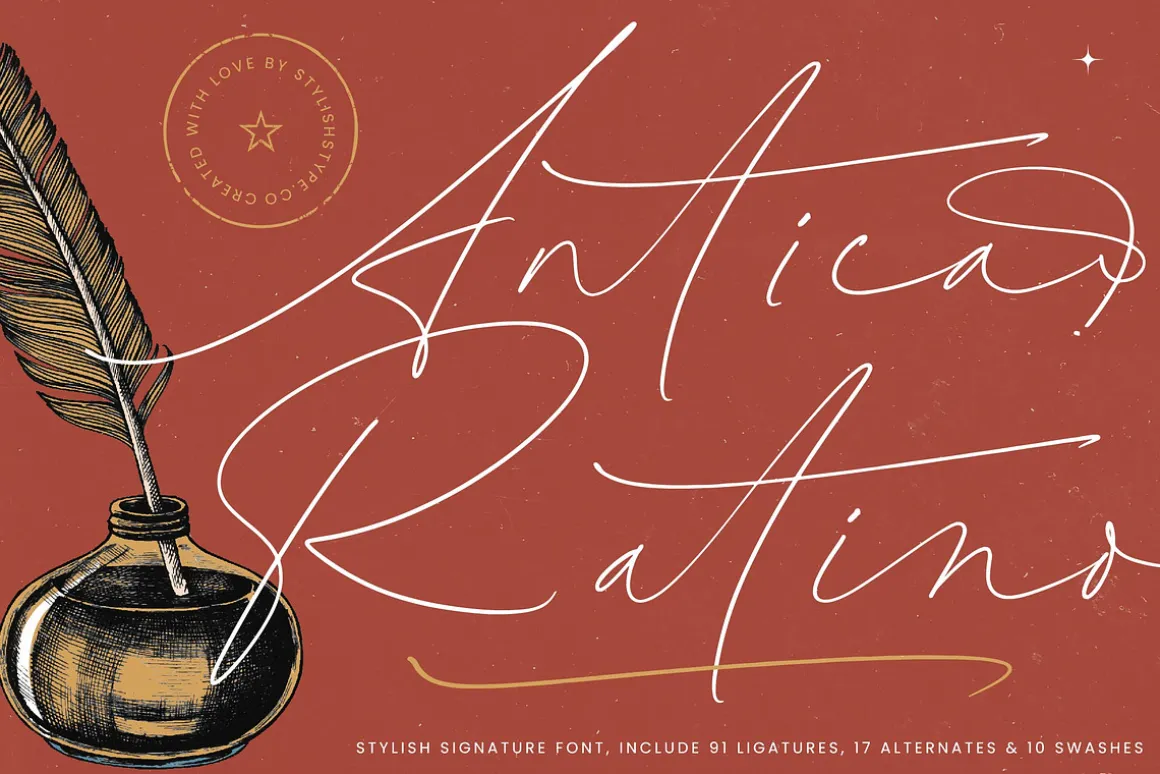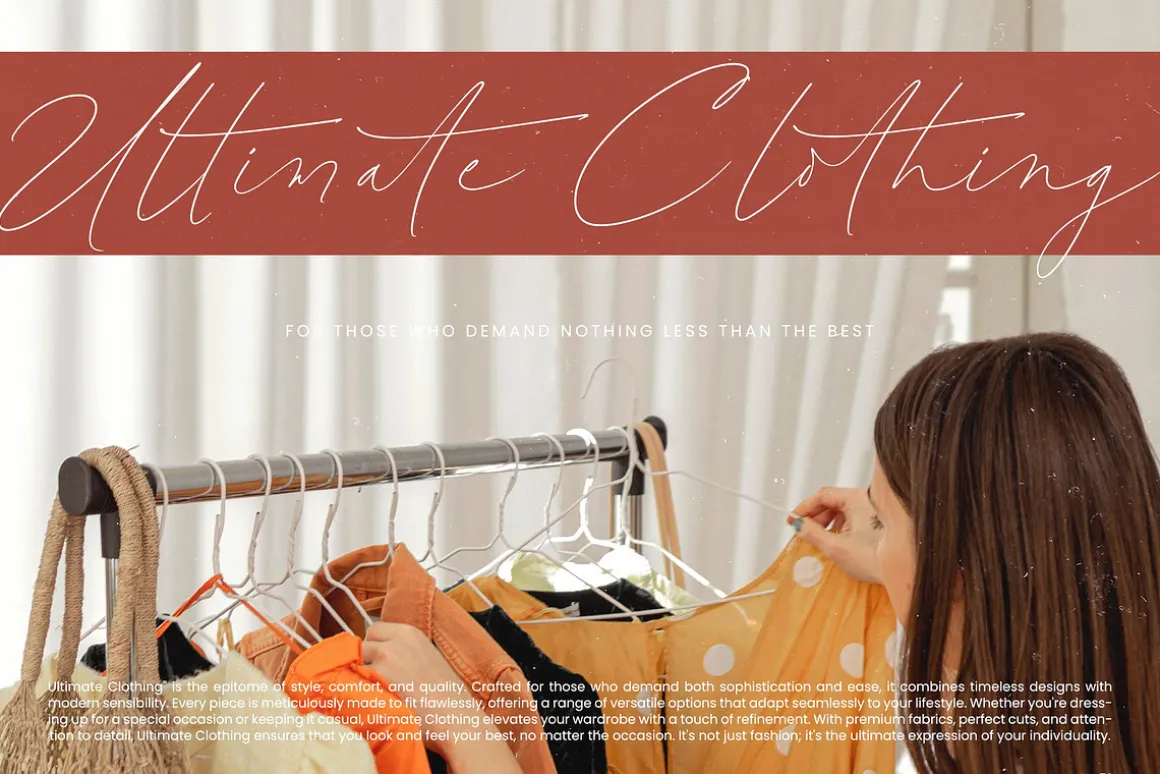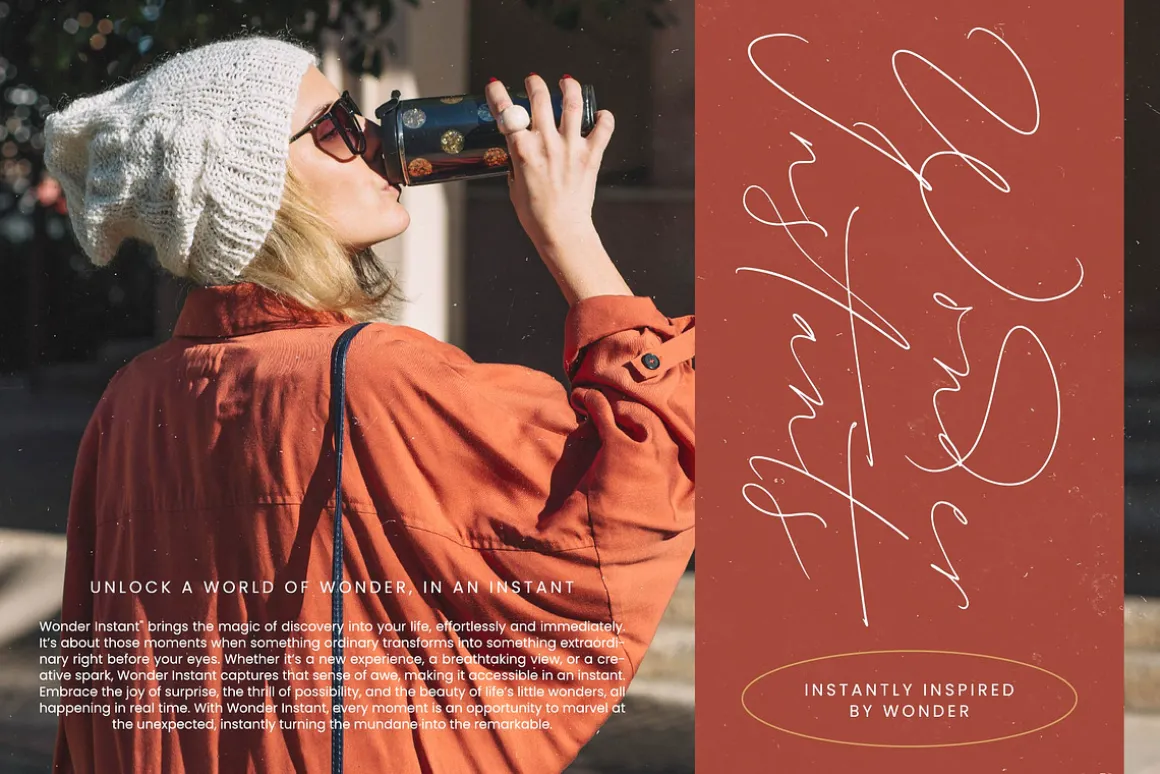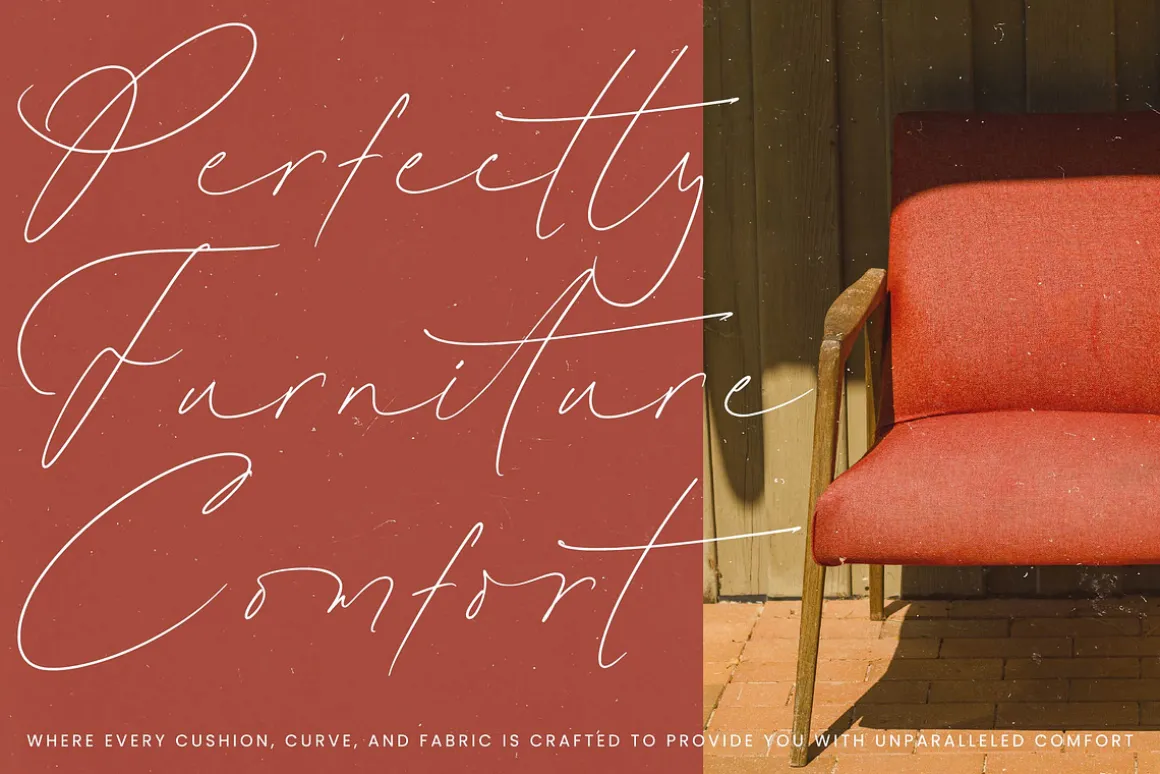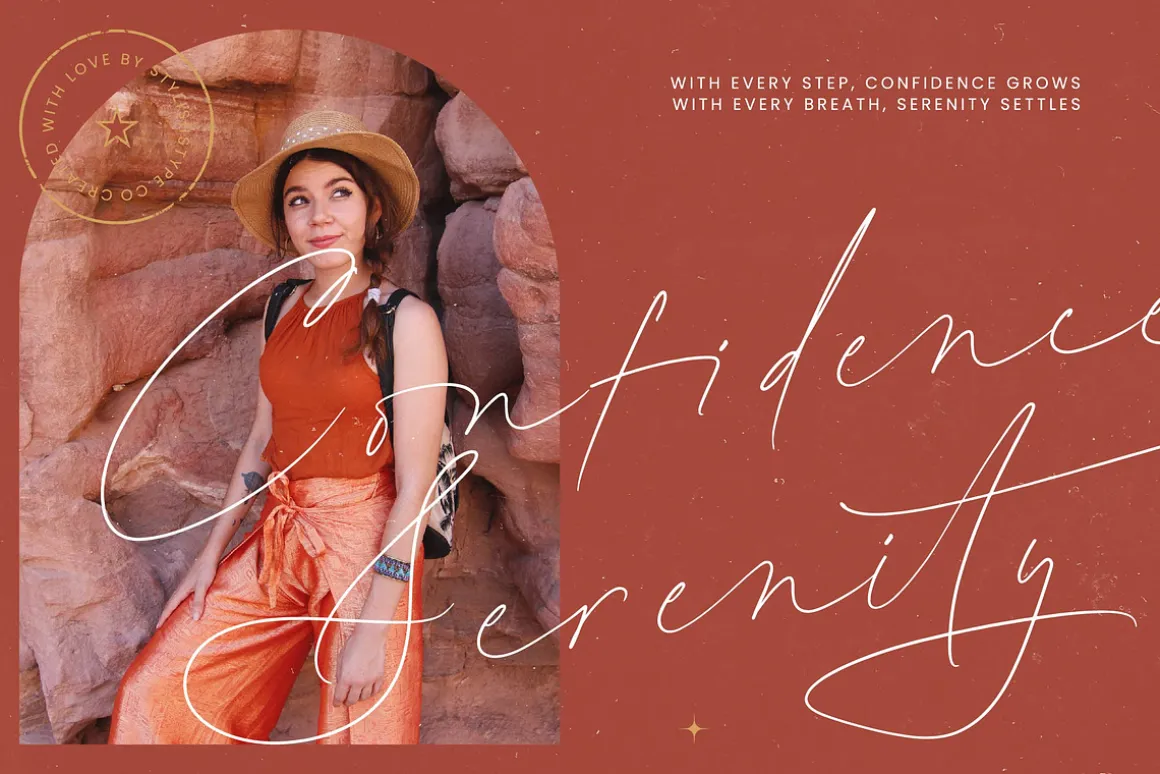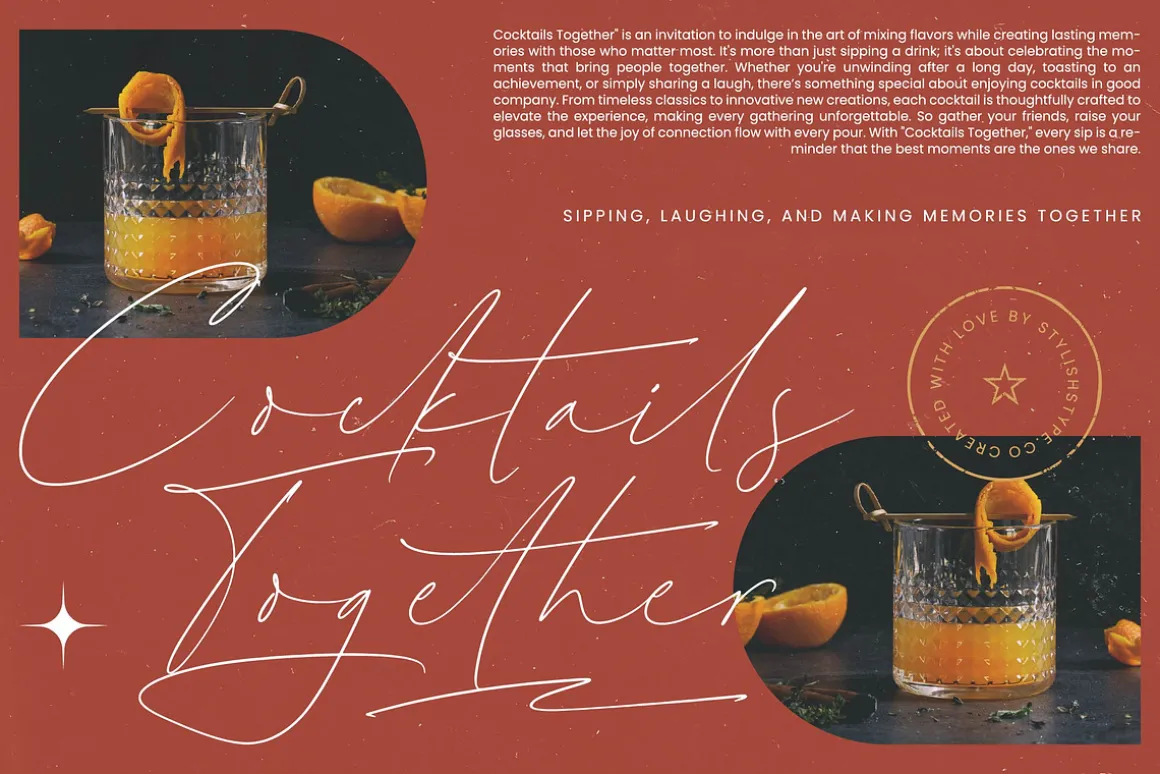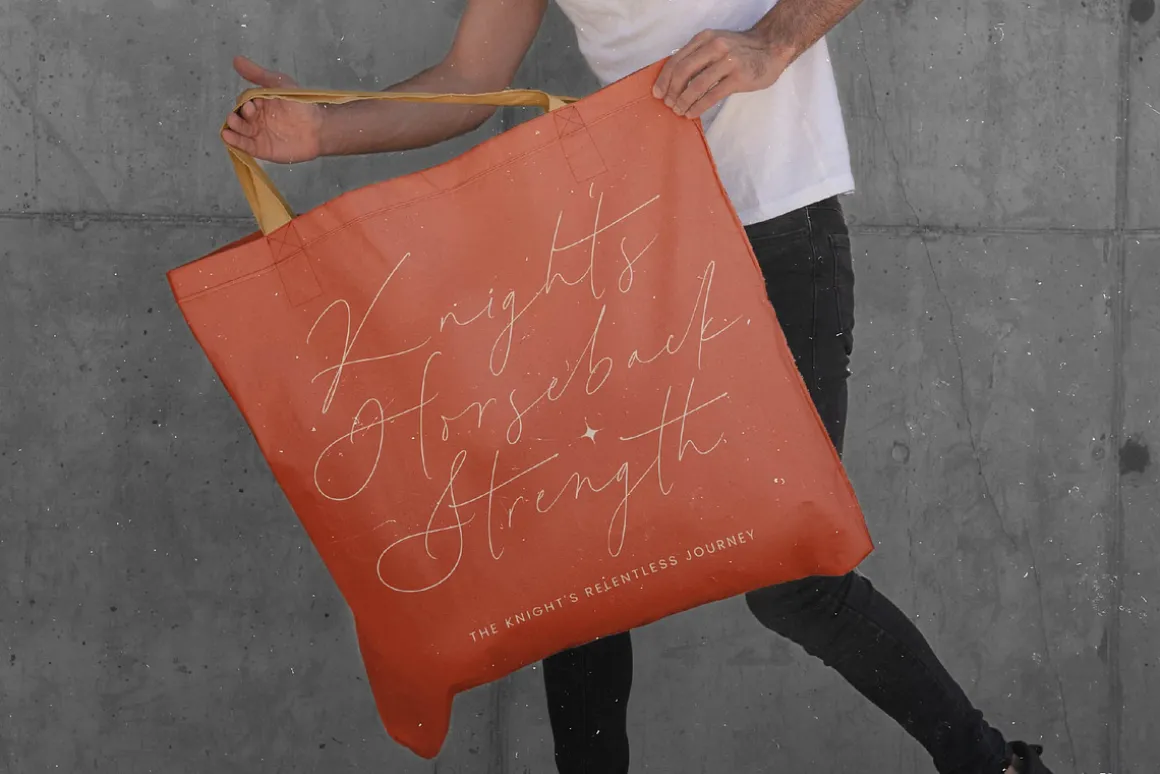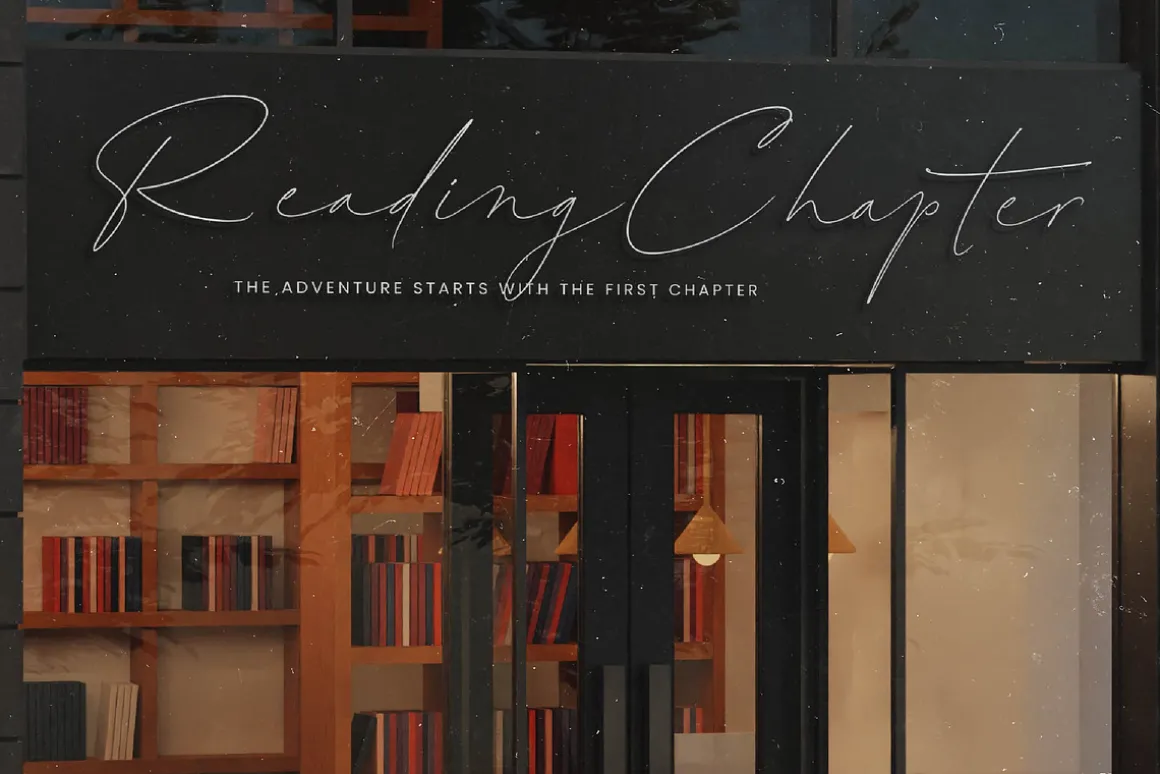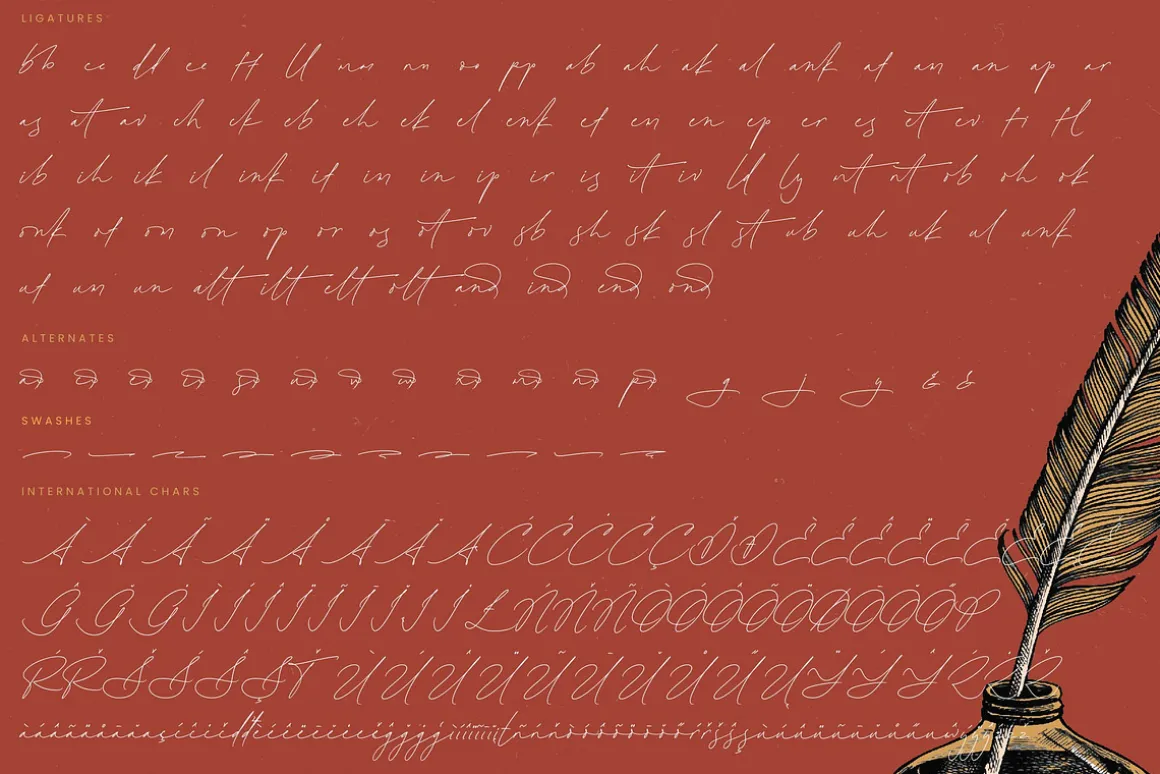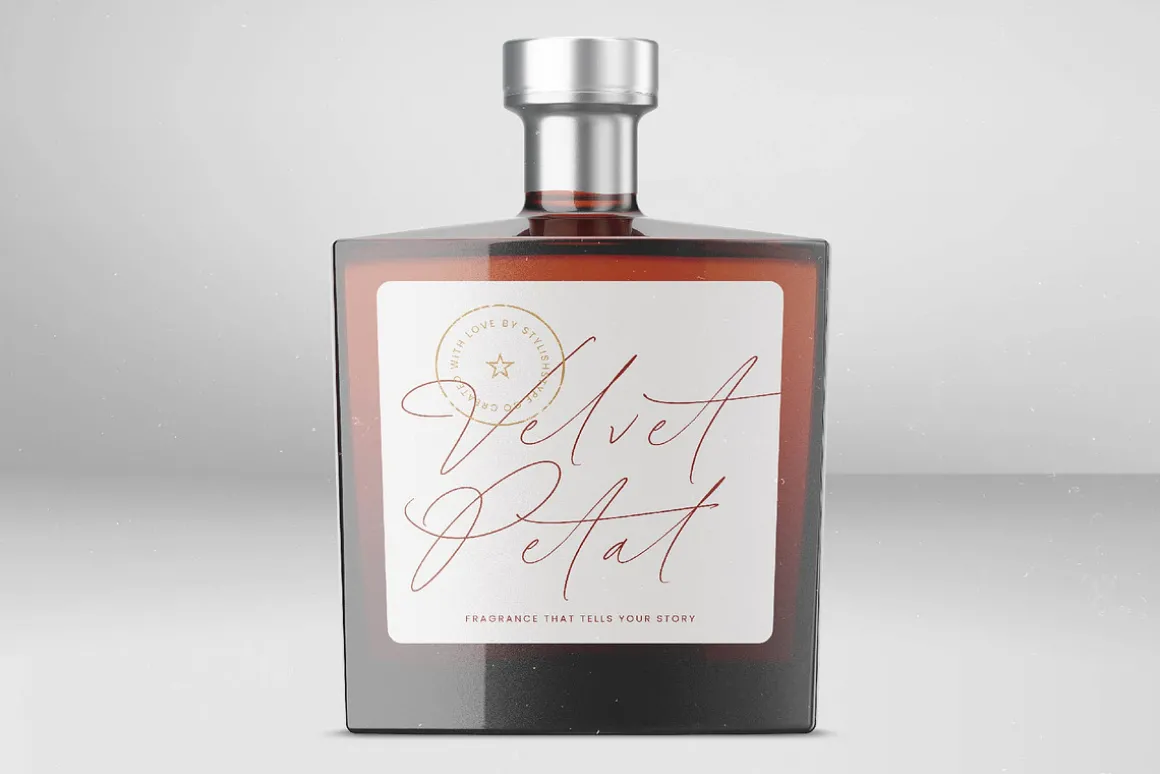
Antica Ratino – Stylish Signature Font , from Stylishtype.Co , Suitable for any projects such as: logos, branding projects, homeware designs, product packaging, mugs, quotes, posters, shopping bags, t-shirts, book covers, name card, invitation cards, greeting cards, label, photography, watermark, special events, and all your other luxury and beautiful projects that need a Luxury Script taste.
- 91 Ligature 17 Alternates & 10 Swashes
- Uppercase and Lowercase
- Numerals
- Punctuations (OpenType Standard)
- Accents (Multilingual Characters)
- Ligatures and Alternative Style Stylistic Set